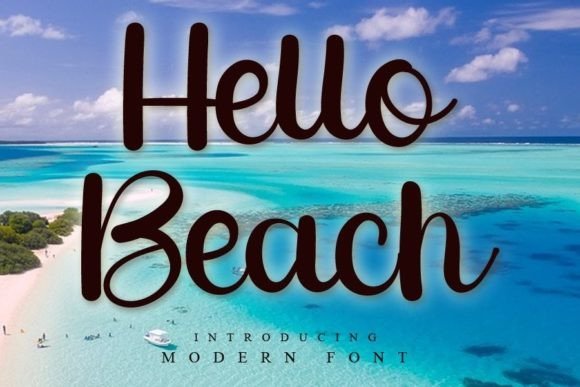
Discover the Perfect Beachy Vibe with Hello Beach Font
Have you ever found yourself strolling along a serene beach at sunset, feeling inspired by the soothing sound of the waves and the warmth of the golden light? That’s exactly the kind of creative moment that sparked the creation of the Hello Beach Font.
This beautiful font is designed to bring a fresh and unique touch to your design projects, from YouTube banners to wedding invitations and everything in between. With its simple yet eye-catching design, the Hello Beach Font is perfect for adding a personal touch to your work.
As a designer, you know how important it is to stand out from the crowd and make a lasting impression. That’s where the Hello Beach Font comes in – it’s a valuable addition to any designer’s toolkit, and is sure to help your business progress and develop in no time.
Hello Beach Font Key Features
- Font Style: Casual, Handwritten Script
- Font Size: 400 glyphs (including uppercase, lowercase, numbers, and punctuation)
- Unique Characteristics: Includes beach-themed icons and symbols, perfect for summer-themed designs, travel, and leisure activities
Hello Beach Font Review
Hello Beach Font is a beautiful, laid-back font that’s perfect for summer vibes. It works well in digital products like mobile apps, web pages, and even print materials. ✨ I love the relaxed feel it brings to the table, making it an excellent choice for branding and advertising.
- ✨ Natural and friendly tone: The font’s cursive style creates a welcoming atmosphere, ideal for businesses catering to families, resorts, or outdoor activities.
- ✨ Highly legible: The font is easy to read, even at smaller sizes, making it suitable for body text and headings.
- ✨ Customizable: Hello Beach Font is available in various weights and styles, allowing designers to adjust its look to suit their needs.
However, there are a few limitations to consider: ⚠️ The font might not be the best choice for formal or corporate branding due to its casual tone. Additionally, some users might find it hard to read at very small sizes or in certain screen resolutions.
Overall, Hello Beach Font is a great addition to any designer’s toolkit. It’s perfect for projects that require a relaxed, beachy feel, but it’s not ideal for more formal or complex designs. With its natural tone and high legibility, it’s an excellent choice for branding and advertising projects that need to convey a sense of calm and relaxation.
Tips for Getting the Most Out of “Hello Beach Font”
For a more authentic beach vibe, use “Hello Beach Font” in combination with a distressed or watercolor effect.
Experiment with different font sizes and colors to create visual hierarchy and emphasis in your design.
Consider pairing “Hello Beach Font” with other beach-inspired fonts, such as “Pacifico” or “Lobster,” for a cohesive look.
“Hello Beach Font” is perfect for:
Beach-themed marketing materials, such as flyers, posters, and social media graphics.
Summer-themed events, such as beach parties, pool parties, or outdoor festivals.
Travel and tourism
Alternatives to Hello Beach Font
Great Vibes is a playful, handwritten font perfect for creating a laid-back and carefree atmosphere. It’s ideal for beach-themed designs, summer promotions, and advertisements that require a fun and casual tone. Great Vibes is more elegant and refined compared to Hello Beach Font, making it suitable for a wider range of design applications.
Pacifico is a beautiful, modern script font that evokes the feeling of a tropical paradise. It’s perfect for designs that need a touch of sophistication and elegance, such as wedding invitations, luxury brands, or high-end advertisements. Pacifico is more formal and polished compared to Hello Beach Font, making it suitable for more formal design applications.